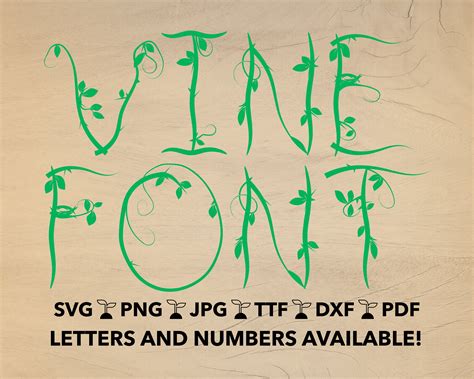
Discover elegant Vine Font designs. Enhance your creative projects with these beautiful floral, botanical, and decorative typography styles. Download now.